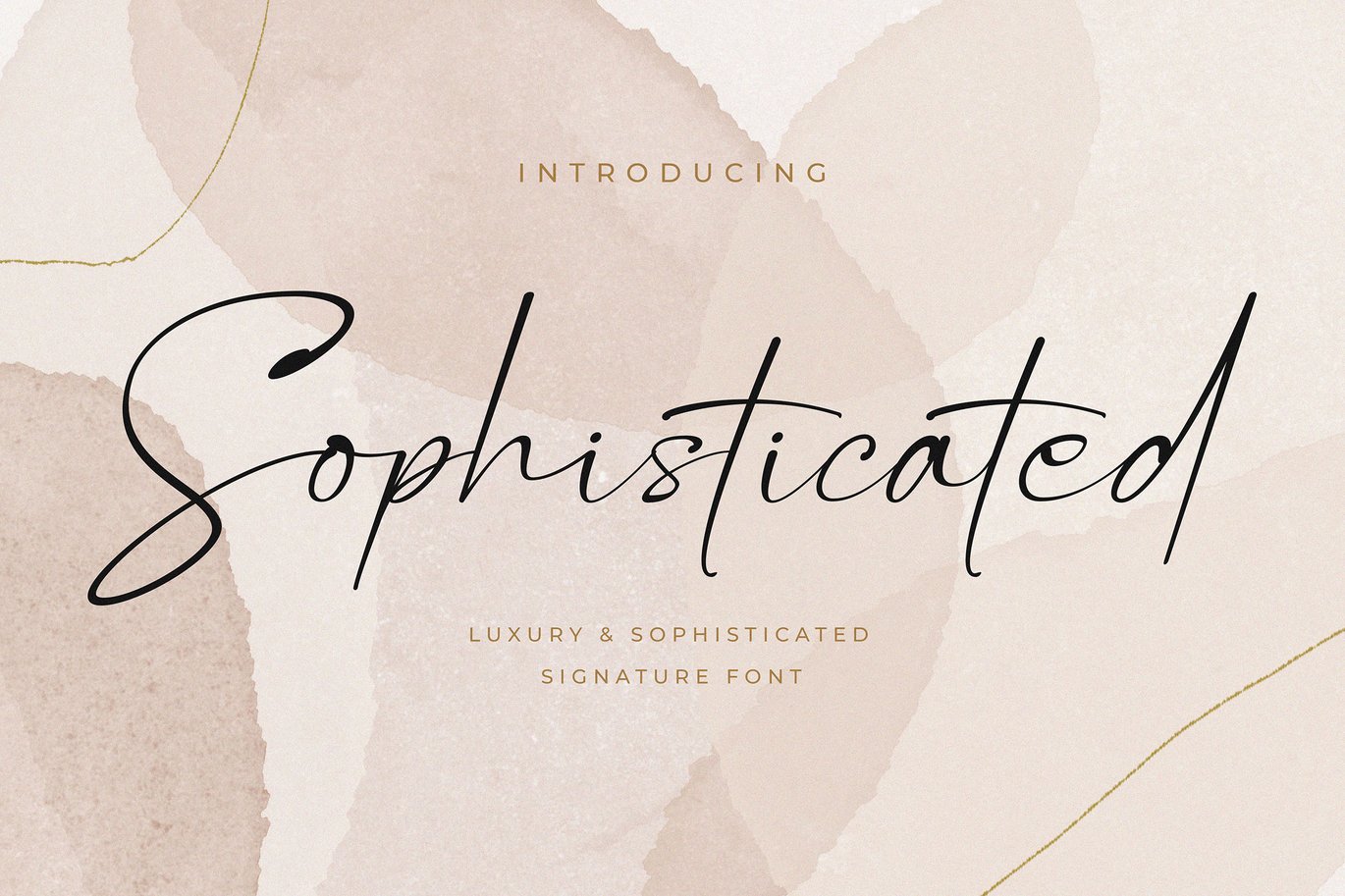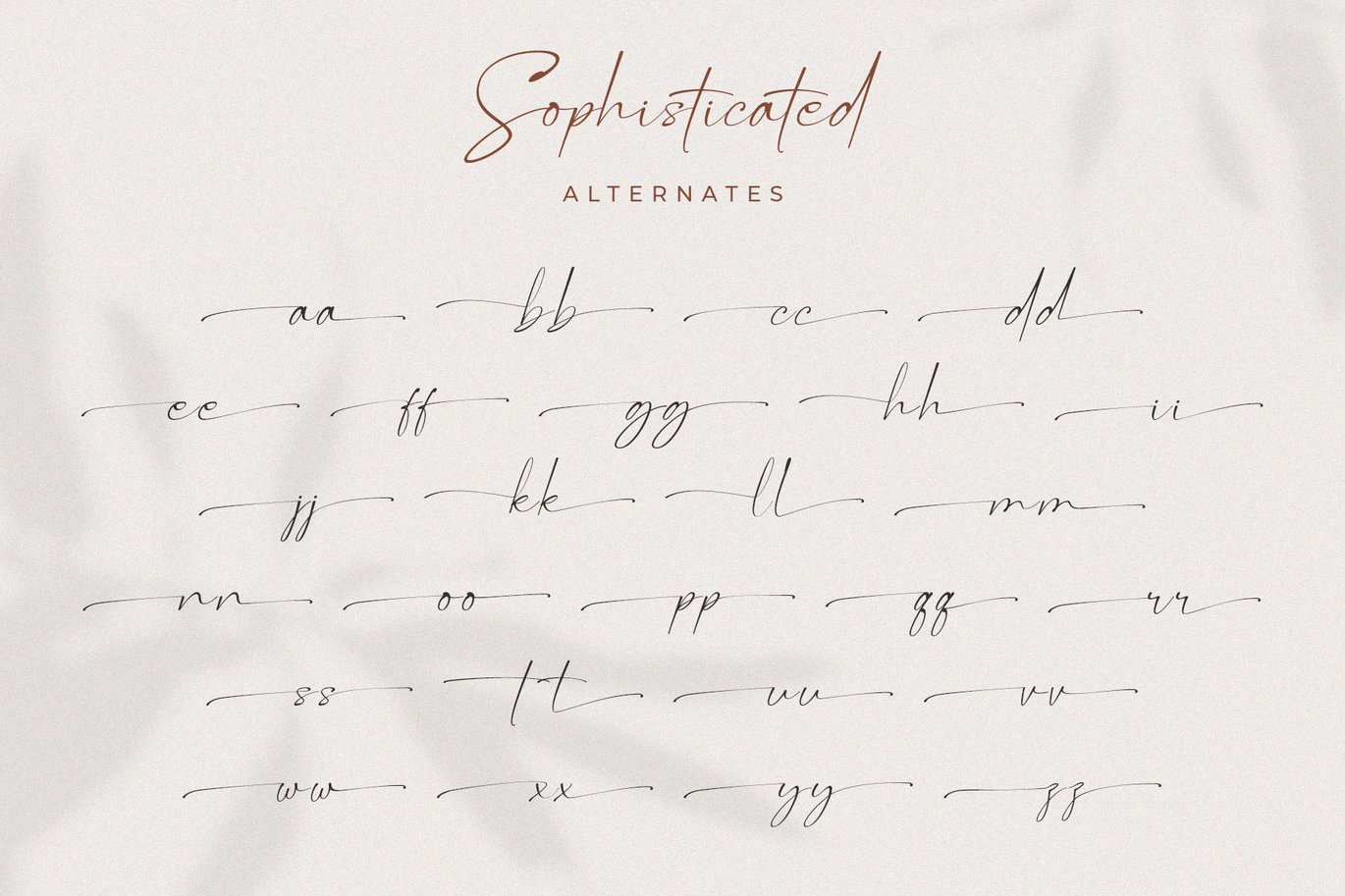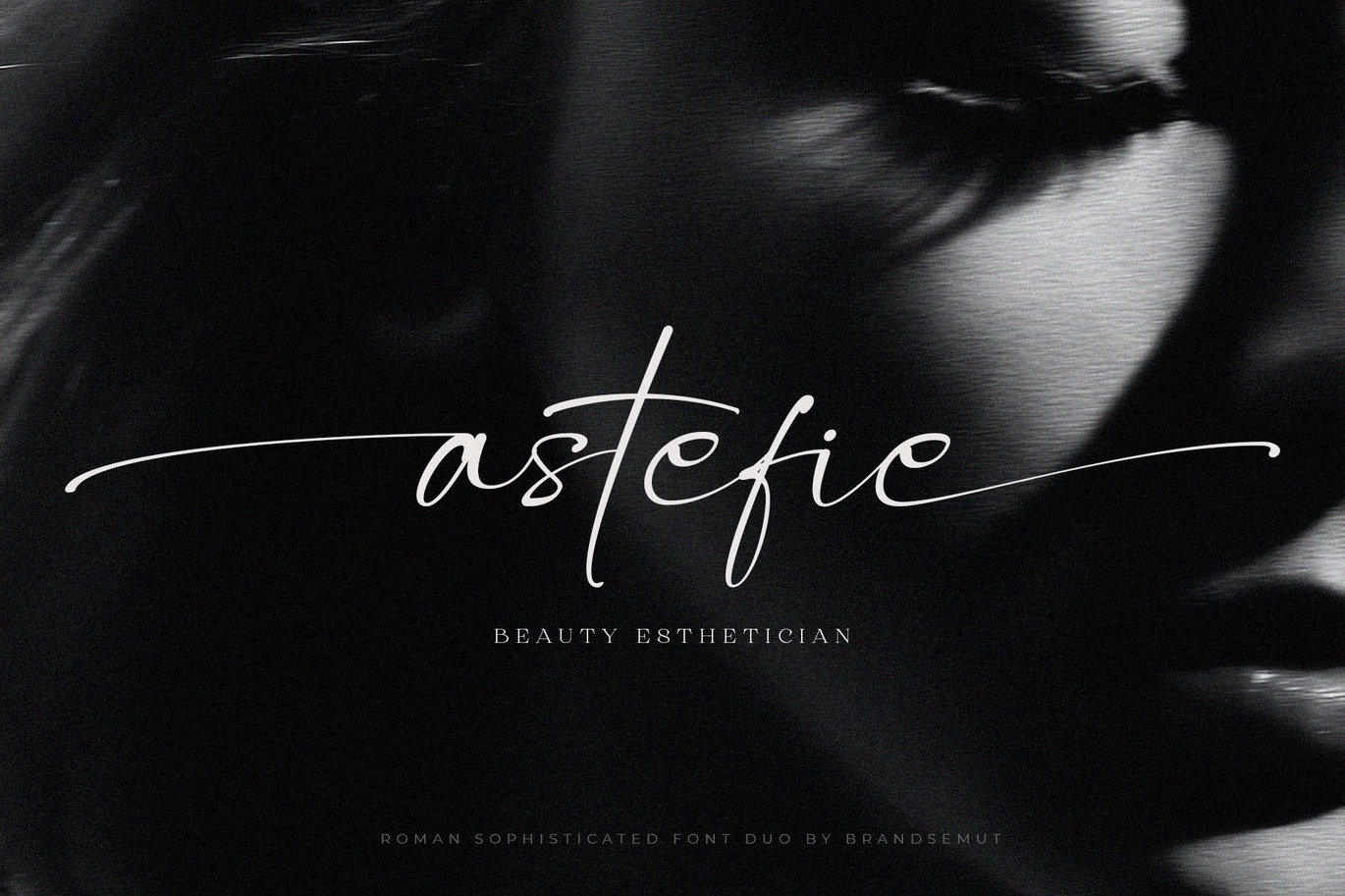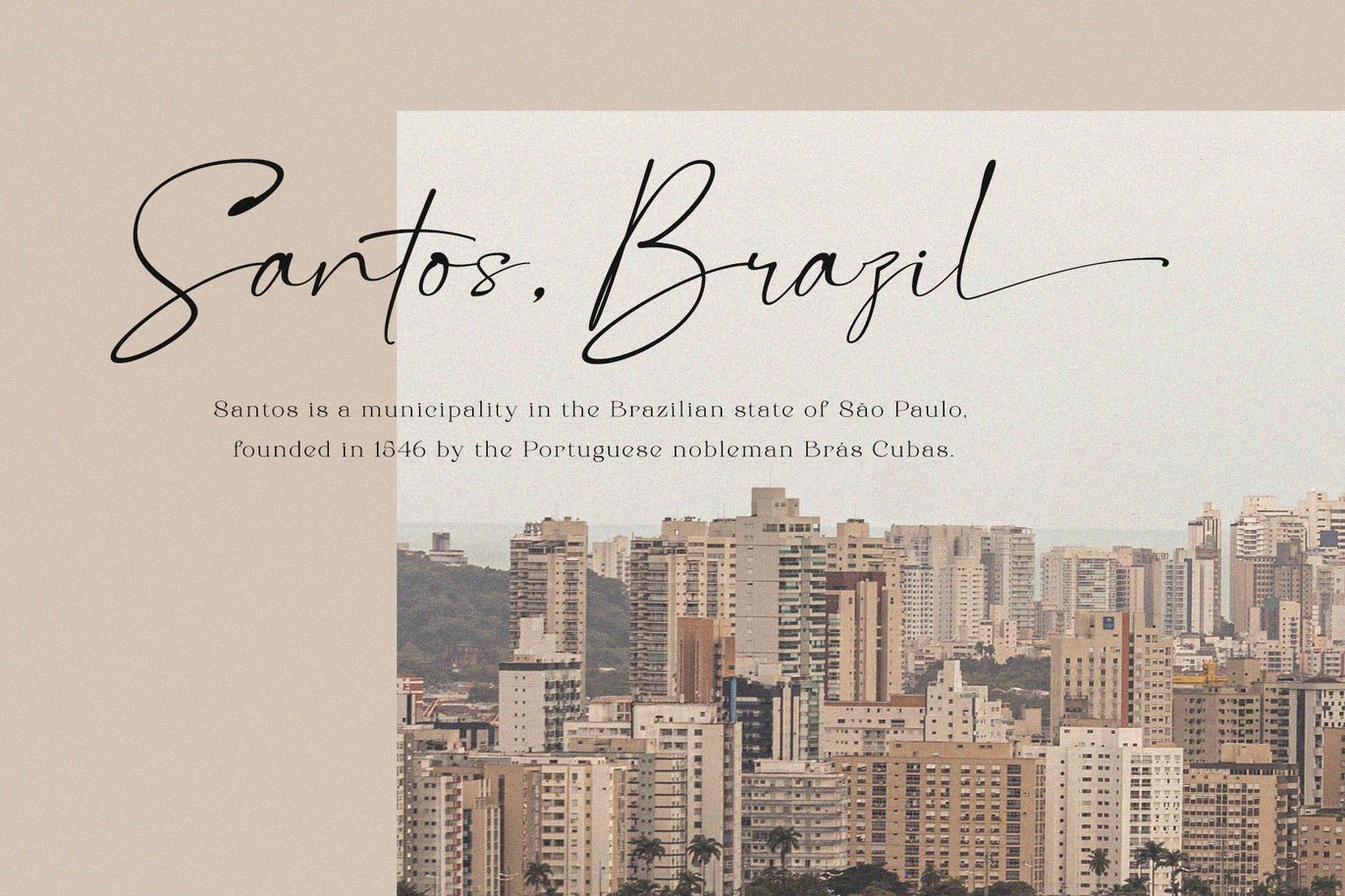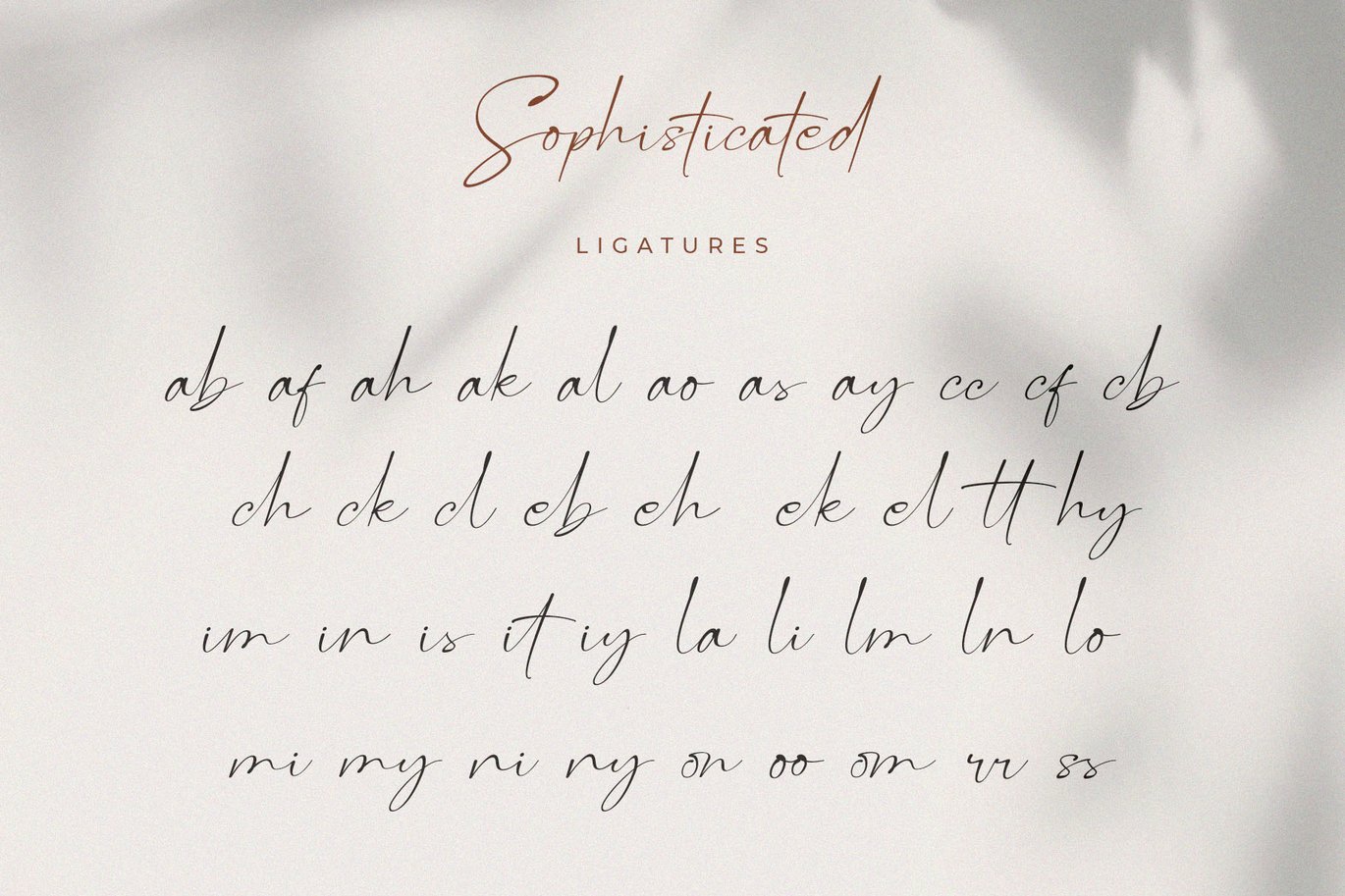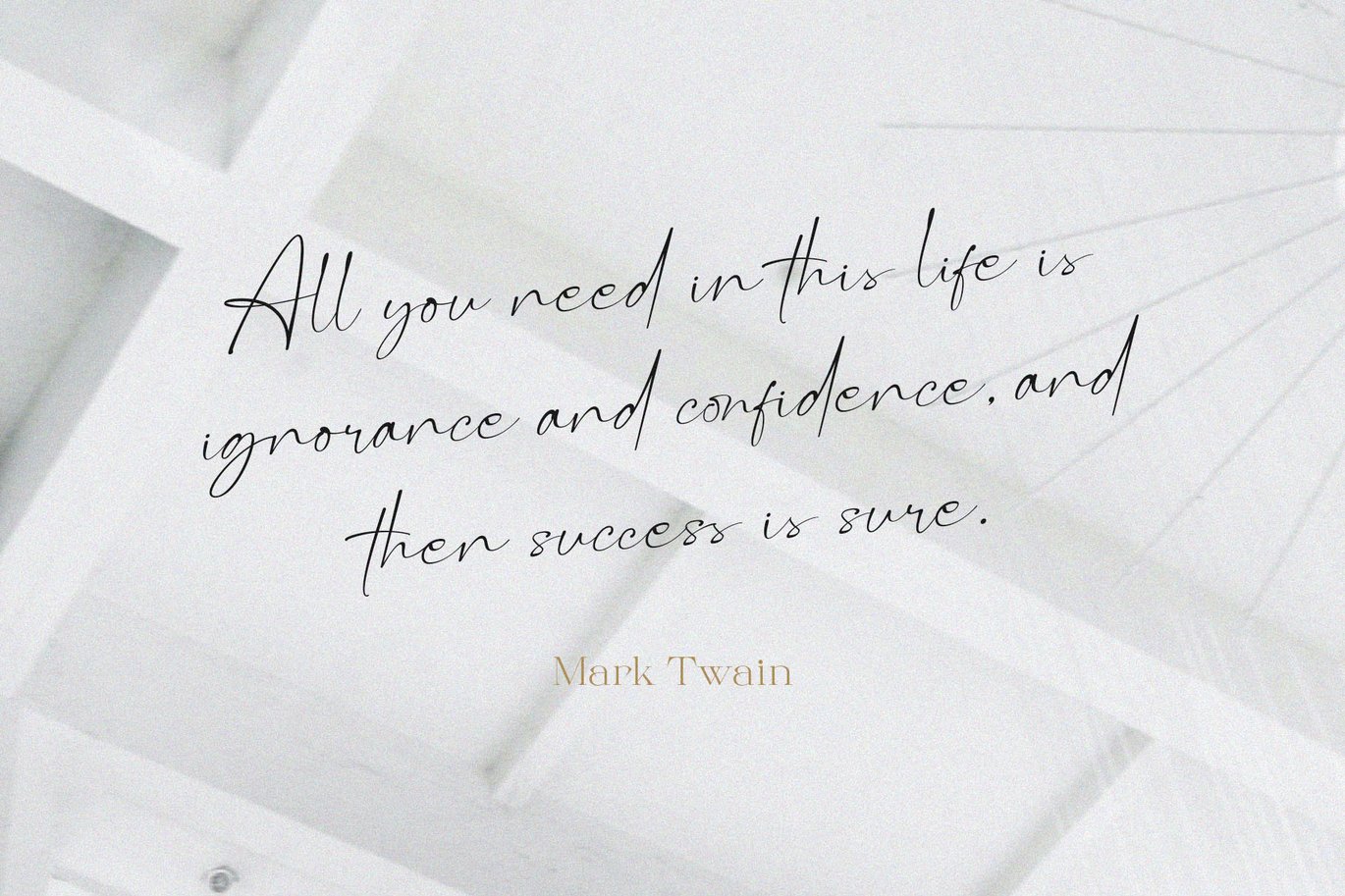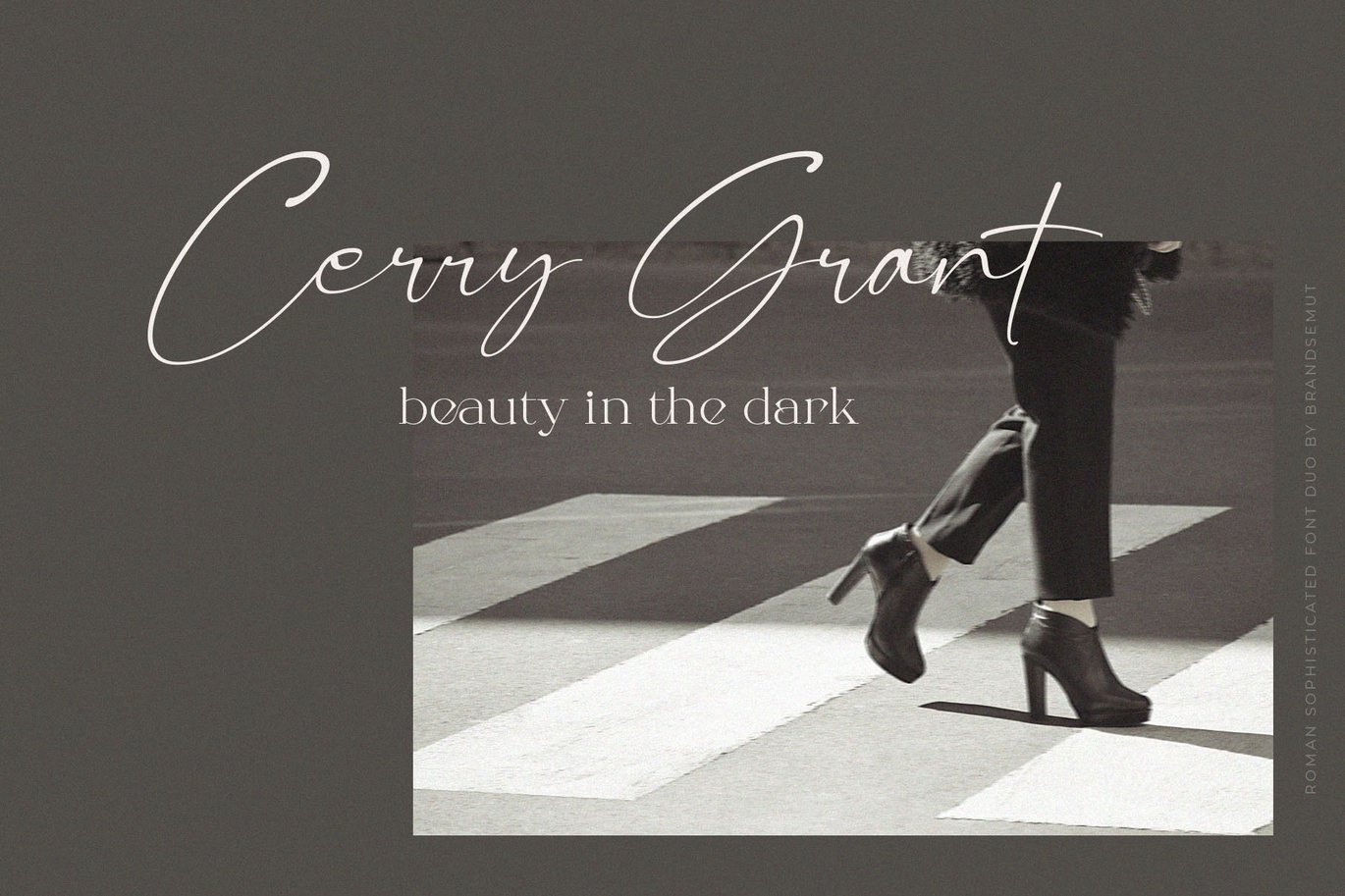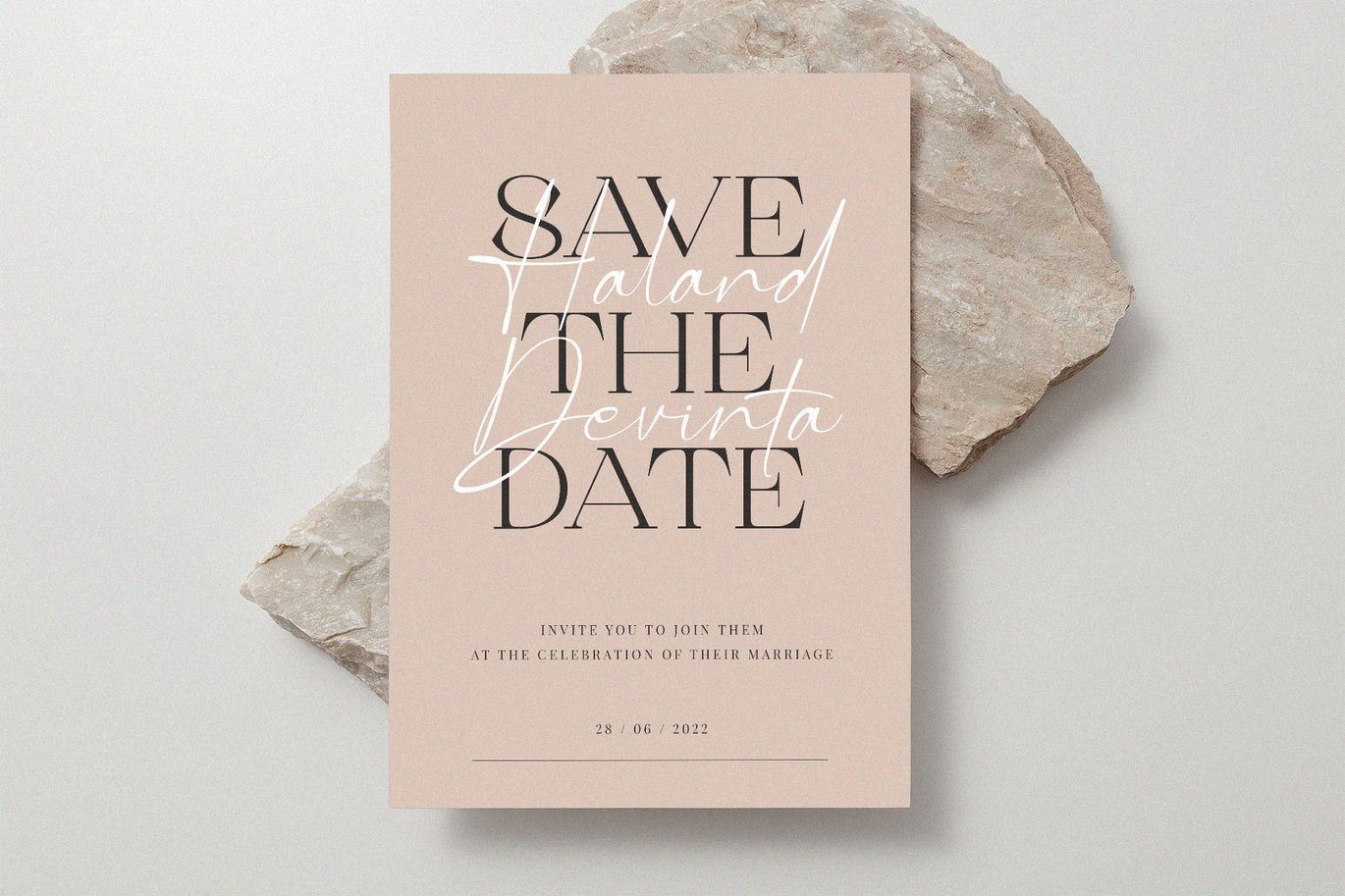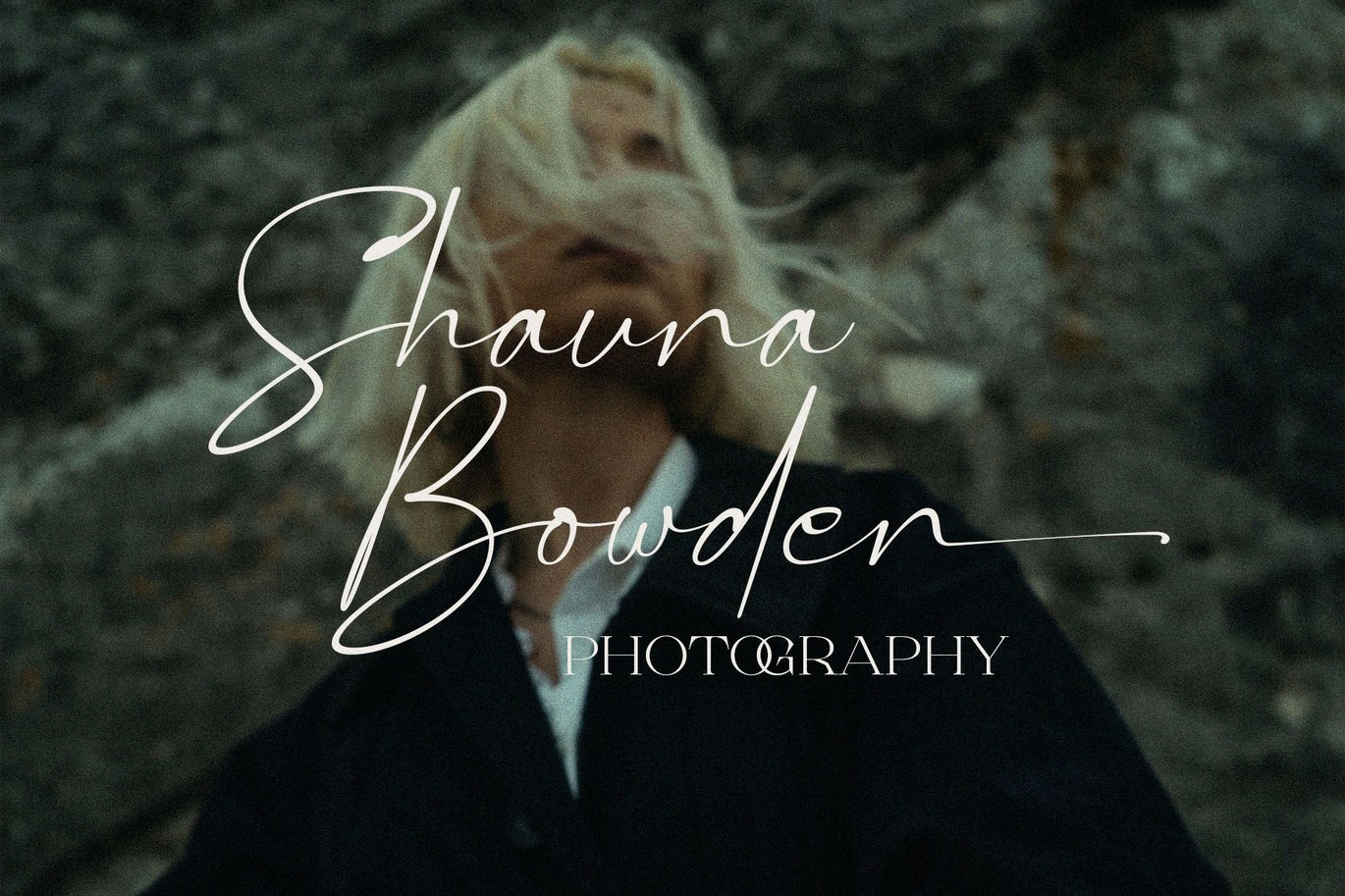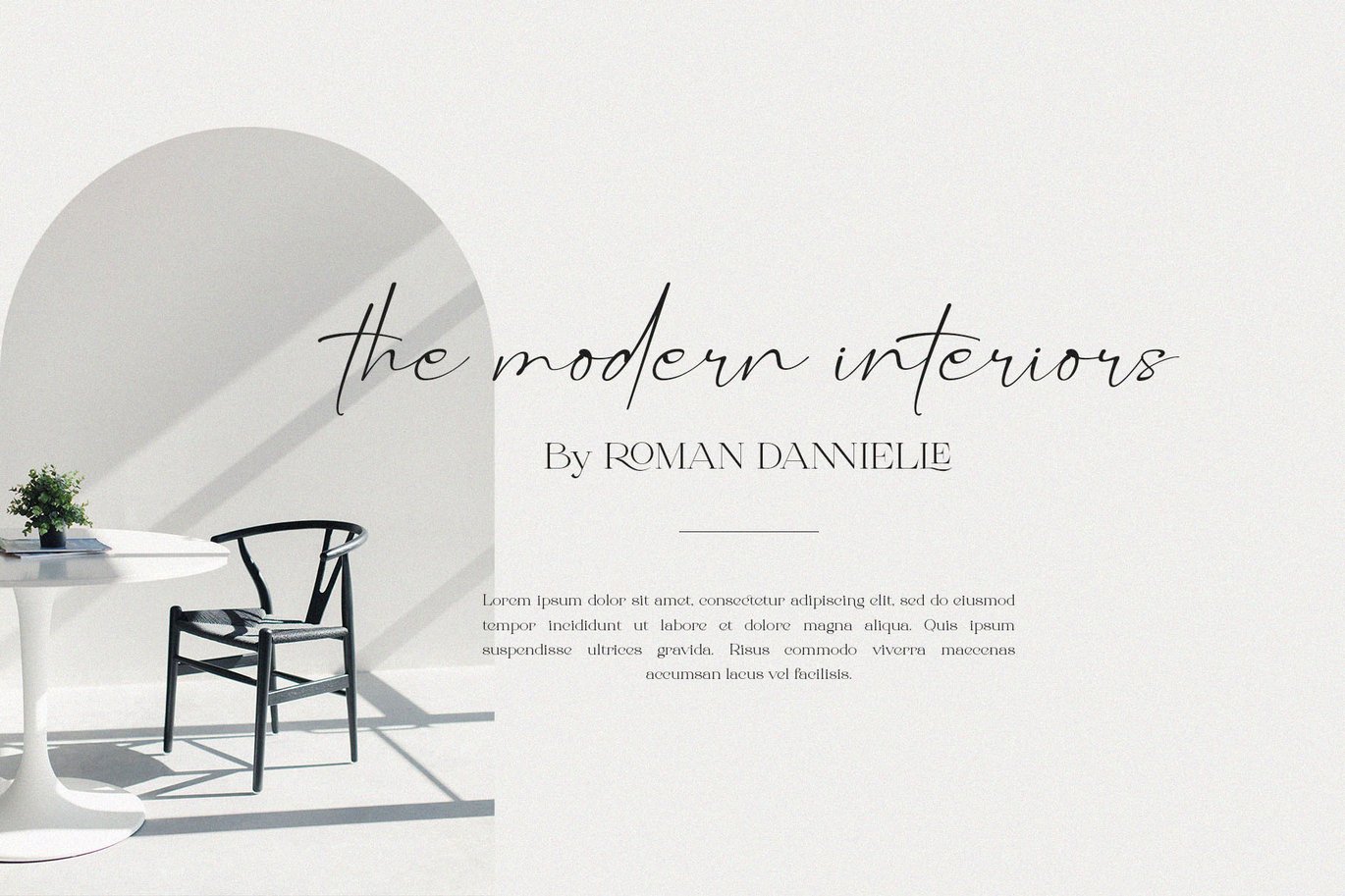
Sophisticated – Signature Font
Introducing the new Sophisticated a stylish signature font !!! For those of you who are needing a touch of elegant, chic and modernity for your designs, this font was created for you!
You will get full set of lowercase and uppercase letters, alternates, multilingual, numerals and punctuation.